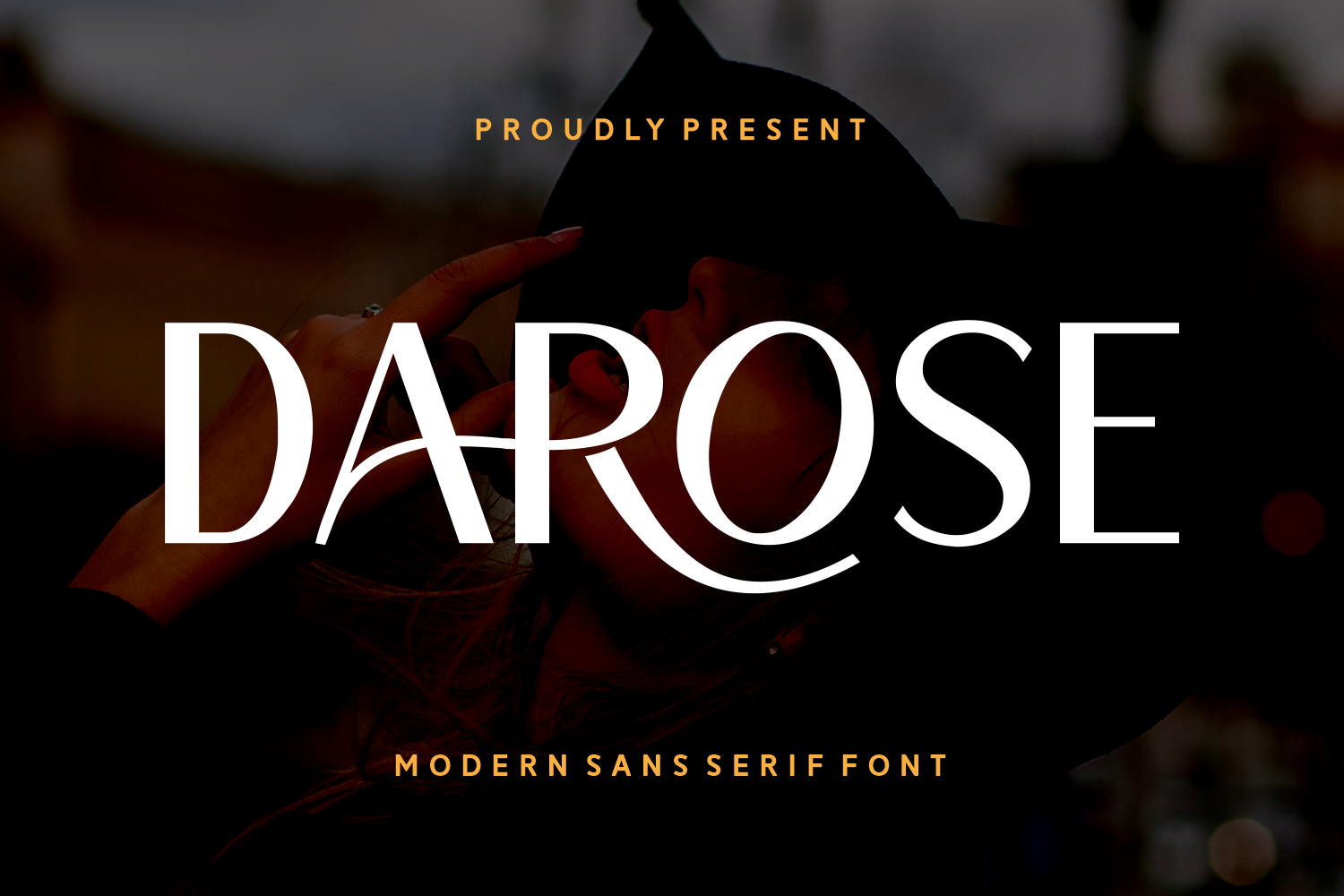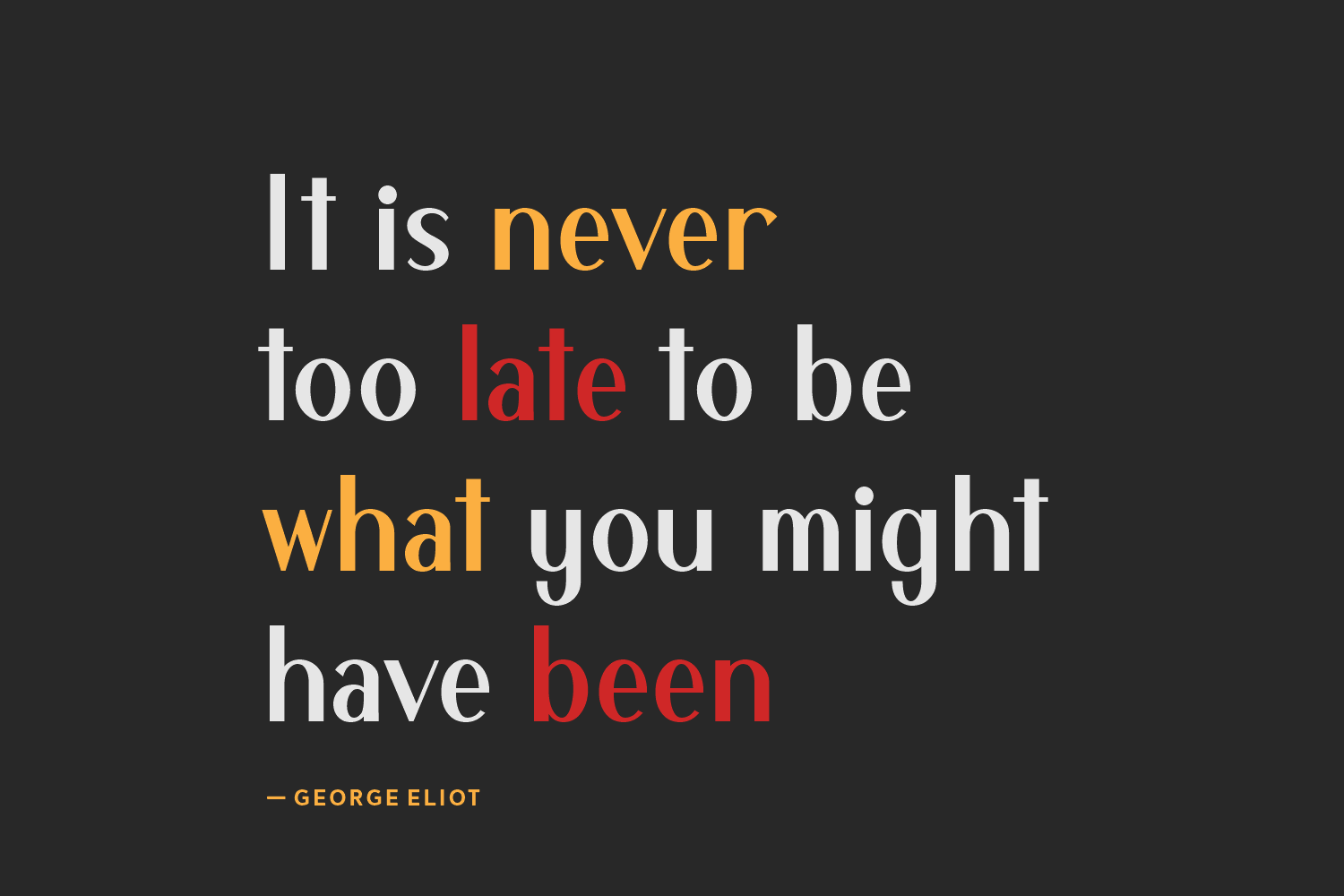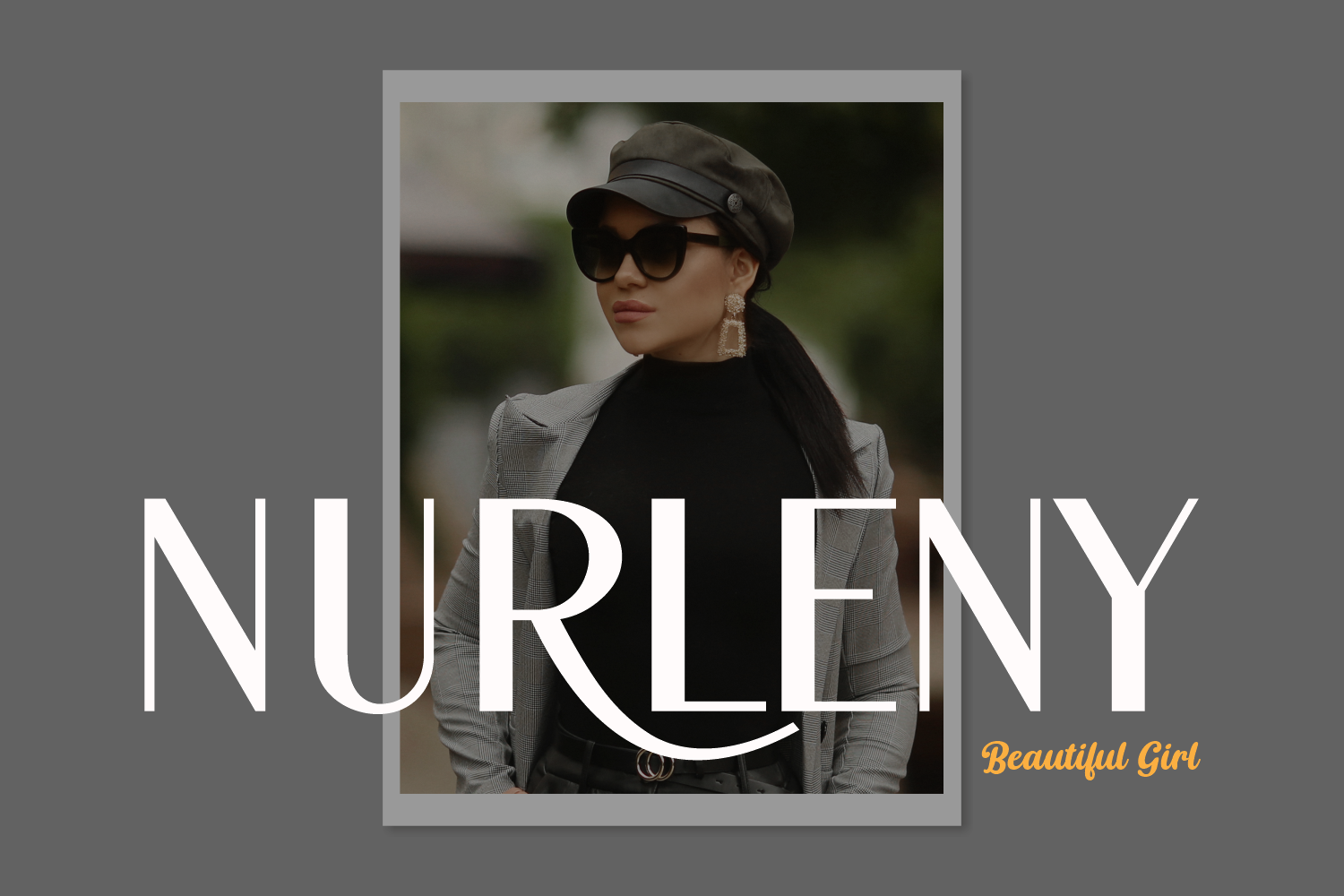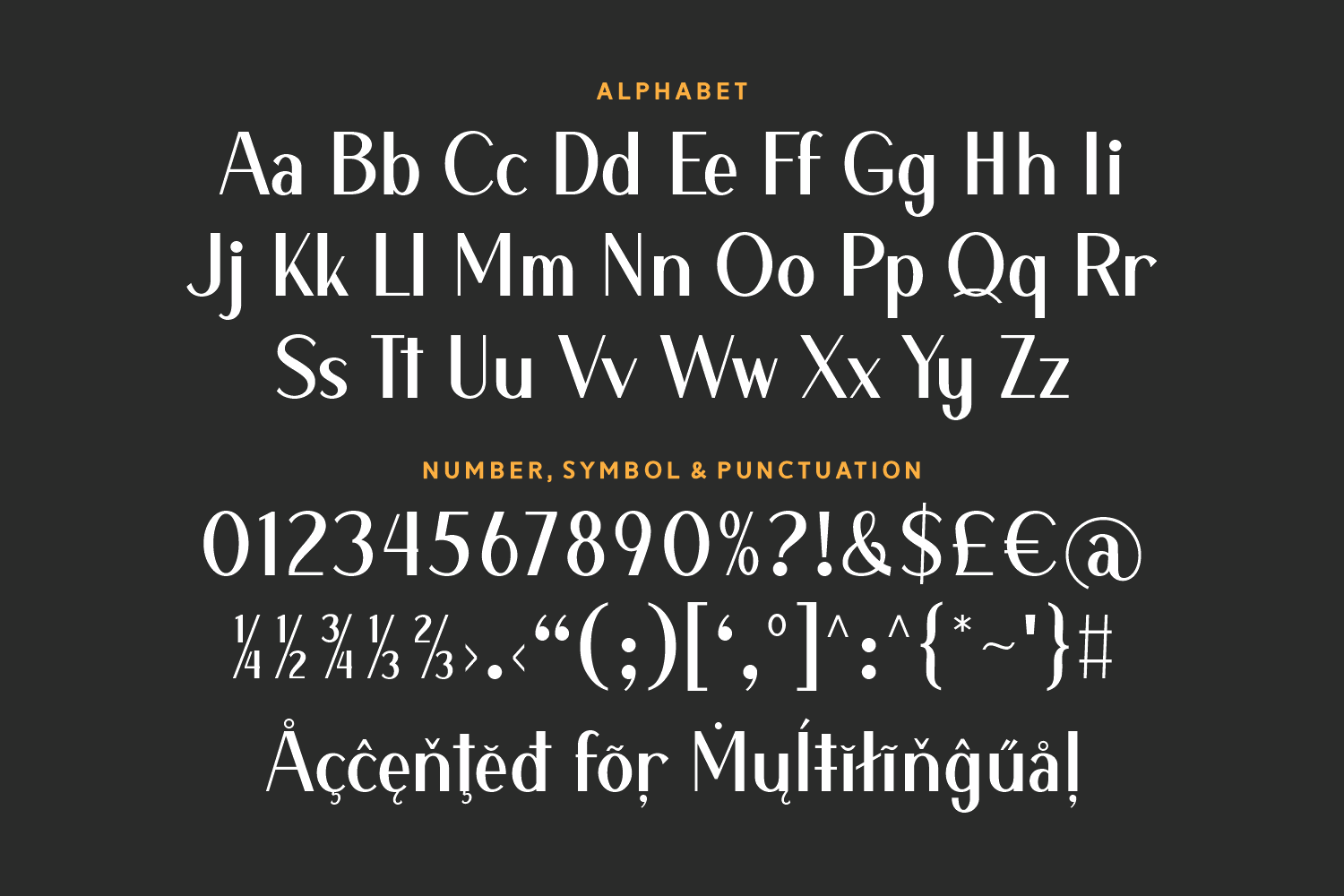
Darose is a glamorous and expressive sans-serif font that stands out with its sweeping curves and bold presence. Perfect for luxury branding, magazine covers, and fashion-forward design, it delivers sophistication with a statement.